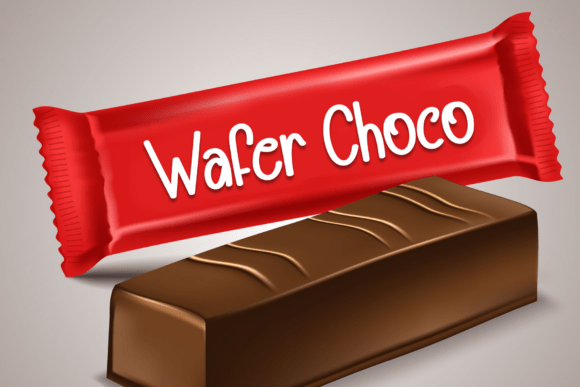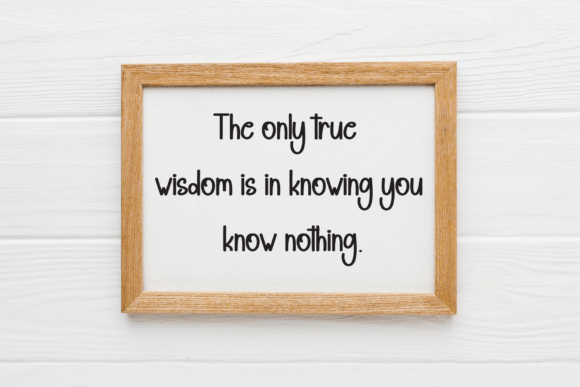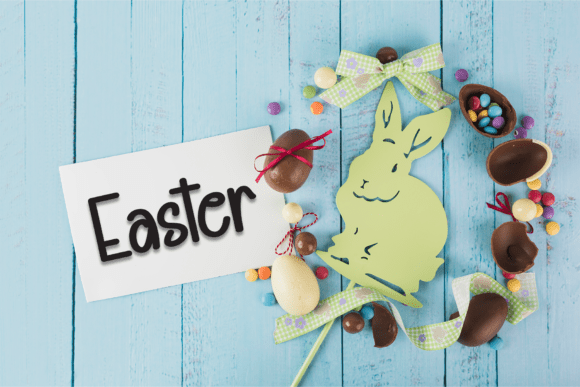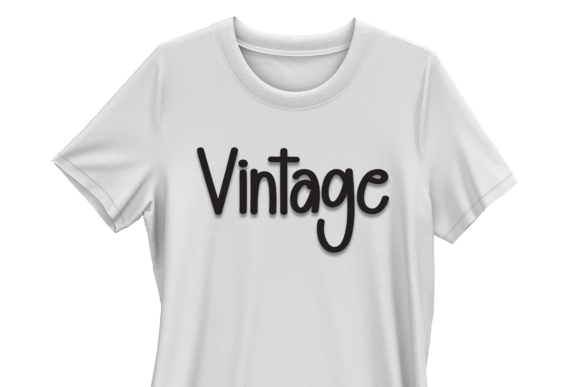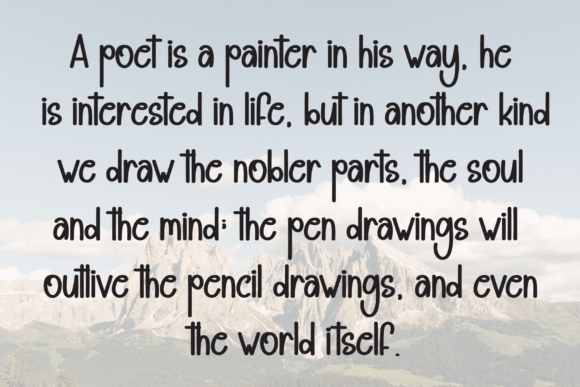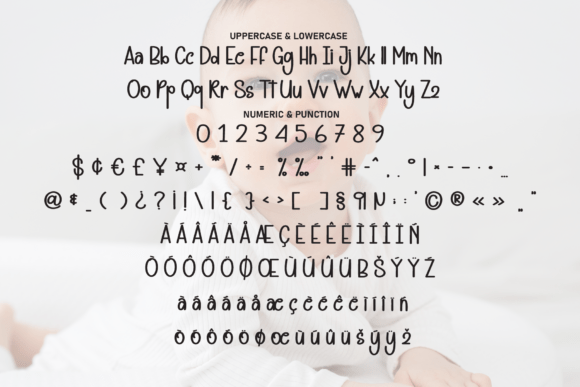
Enter Babycllas Font, a casual and neat display font that radiates a fresh, friendly vibe. With its clean lines and relaxed structure, it’s perfect for packaging, posters, and social media graphics. Whether you’re a seasoned designer or just starting out, Babycllas Font is a valuable addition to your toolkit, adding charm and clarity to your projects while maintaining a polished appearance.
Babycllas Font Key Features
- Unique Characteristics: The font features a unique, hand-drawn design with intricate details and subtle texture, giving it a distinctive and eye-catching appearance.
- Language Support: Babycllas Font supports a wide range of languages, including Latin-based scripts, making it suitable for global design applications.
- Style Variations: The font comes in 4 different styles, including Regular, Bold, Italic, and Bold Italic, providing versatility for designers and typographers.
Babycllas Font Review
I recently had the chance to work with the Babycllas Font, and I must say, it’s a unique addition to any design project. ✨ Here are some of its strengths:
- Playful and Whimsical**: Babycllas Font has a fun and lighthearted feel that makes it perfect for children’s books, nursery decor, or any project that needs a touch of whimsy.
- Customization Options**: The font comes with various weights and styles, giving designers plenty of room to experiment and find the perfect fit for their project.
- High-Quality Vectors**: The vector files are clean, crisp, and easy to work with, making it a breeze to resize and manipulate the font as needed.
- Limited Legibility**: In smaller sizes, the font can become difficult to read, especially for those who are not familiar with it.
- Not Suitable for Corporate Work**: The font’s playful nature may not be suitable for formal or professional projects, where a more traditional font is often preferred.
Overall, I think Babycllas Font is a great addition to any designer’s toolkit, but it’s essential to understand its limitations and use it judiciously. With its playful and whimsical nature, it’s perfect for projects that need a touch of fun and creativity.
Babycllas Font is ideal for:
- Infant product packaging design
- Family-friendly branding
Tips for Getting the Most Out of Babycllas Font
For optimal results:
- Use the font in combination with playful colors and graphics.
- Pair the font with other fonts to create a unique and engaging visual identity.
Alternatives to Babycllas Font
Great Vibes is a modern script font designed by Laurentino Abreu. It’s perfect for creating a relaxed and casual atmosphere in designs. Great Vibes is ideal for use in wedding invitations, social media graphics, and blog headers.
Compared to Babycllas Font, Great Vibes has a more relaxed and casual feel, whereas Babycllas Font is more elegant and sophisticated. Great Vibes is also more versatile and can be used in a variety of contexts, while Babycllas Font is more suited for formal and professional designs.
Carolyna Pro is a stylish and elegant script font designed by Alejandro Paul. It’s perfect for creating a luxurious and high-end atmosphere in designs. Carolyna Pro is ideal for use in luxury branding, advertising, and editorial designs.